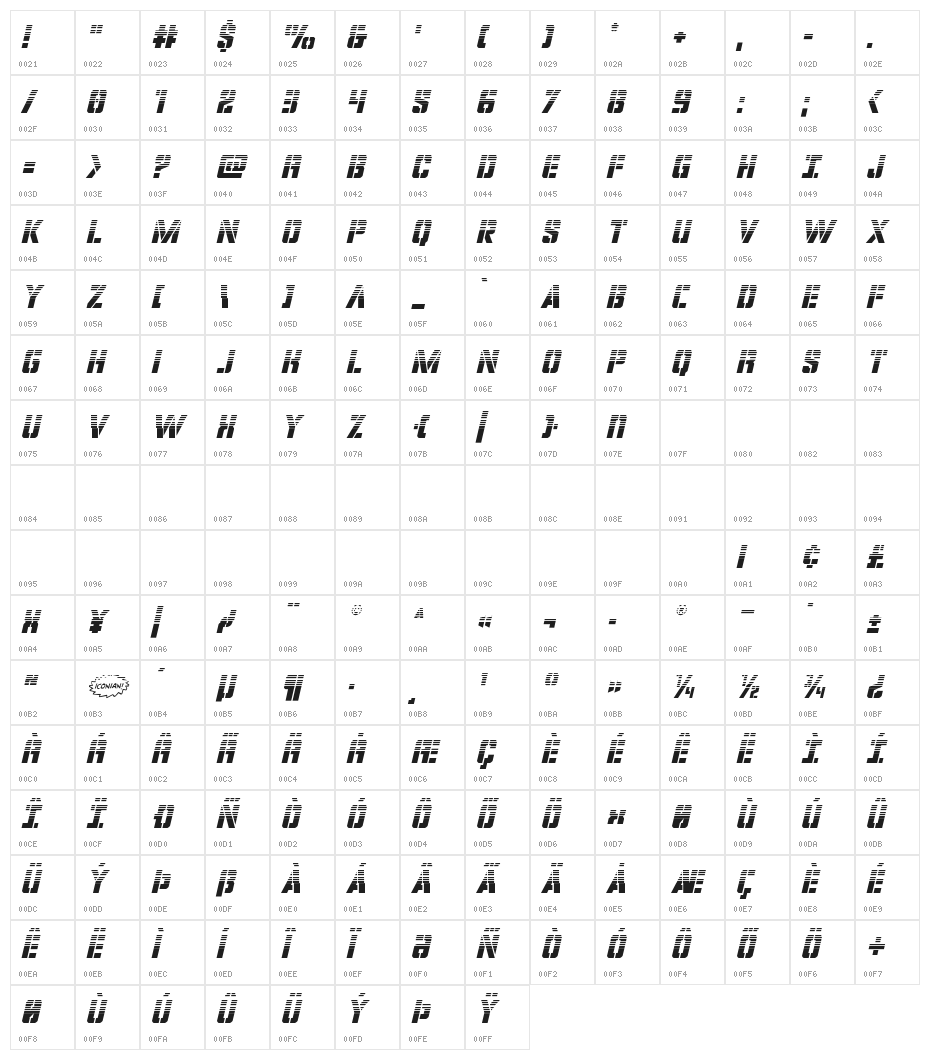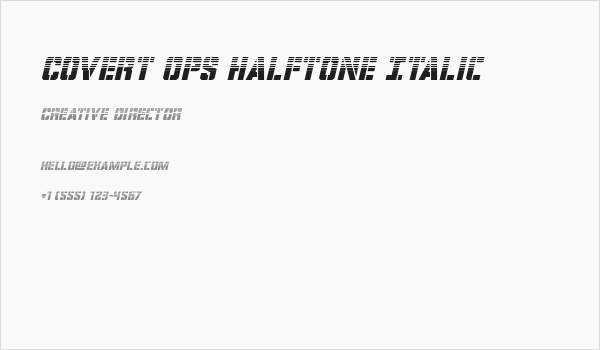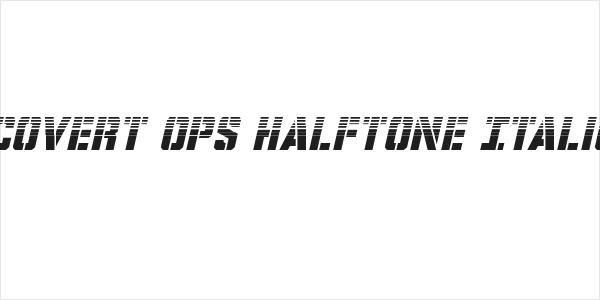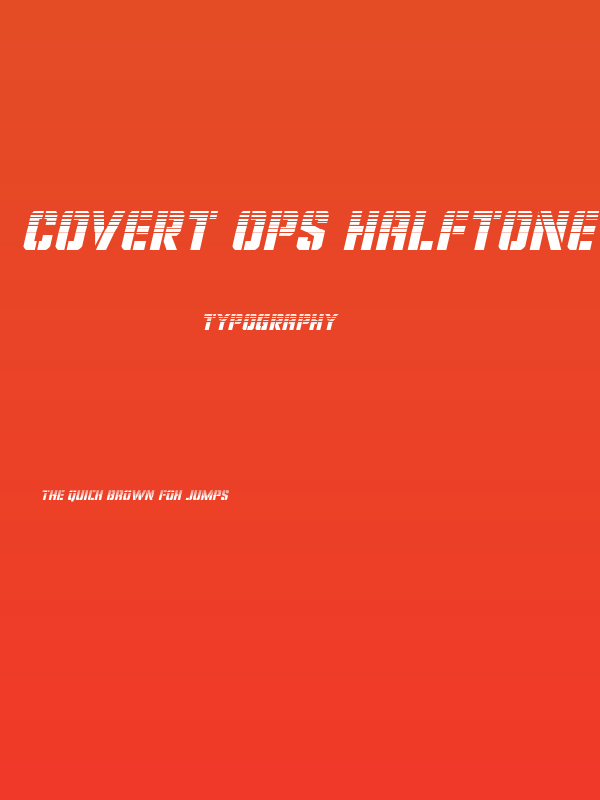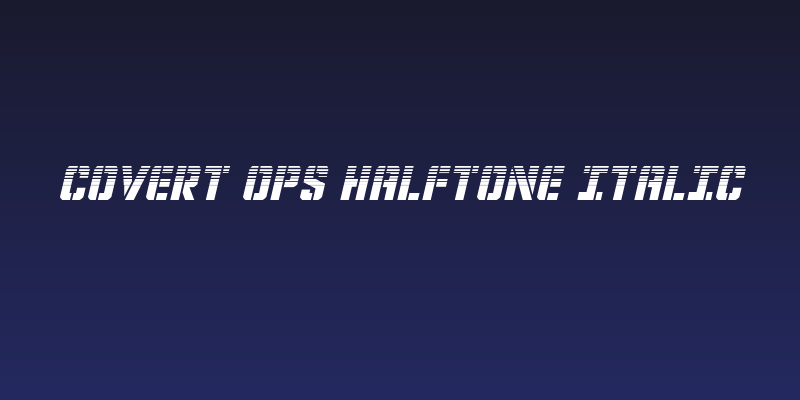
Covert Ops Halftone Italic Font
Covert Ops Halftone Italic Description
This font features a bold, italicized style with a distinctive halftone pattern that gives it a modern and edgy appearance. The characters are designed with a slanted orientation, enhancing the dynamic and forward-moving feel. The halftone effect creates a sense of depth and texture, making it stand out in digital and print media. The uppercase and lowercase letters maintain a consistent style, with sharp angles and clean lines. Numbers and special characters are equally bold and follow the same halftone pattern, ensuring uniformity across all text elements.
| Proposed Projects | Ideal for projects that require a futuristic or tech-oriented aesthetic, such as video game titles, movie posters, or branding for tech companies. |